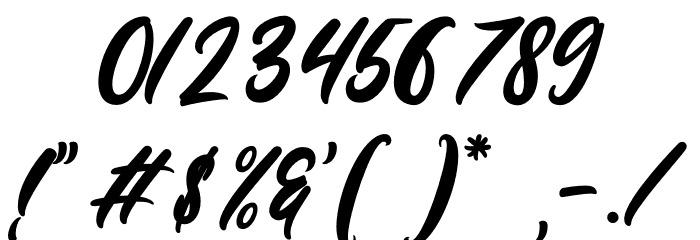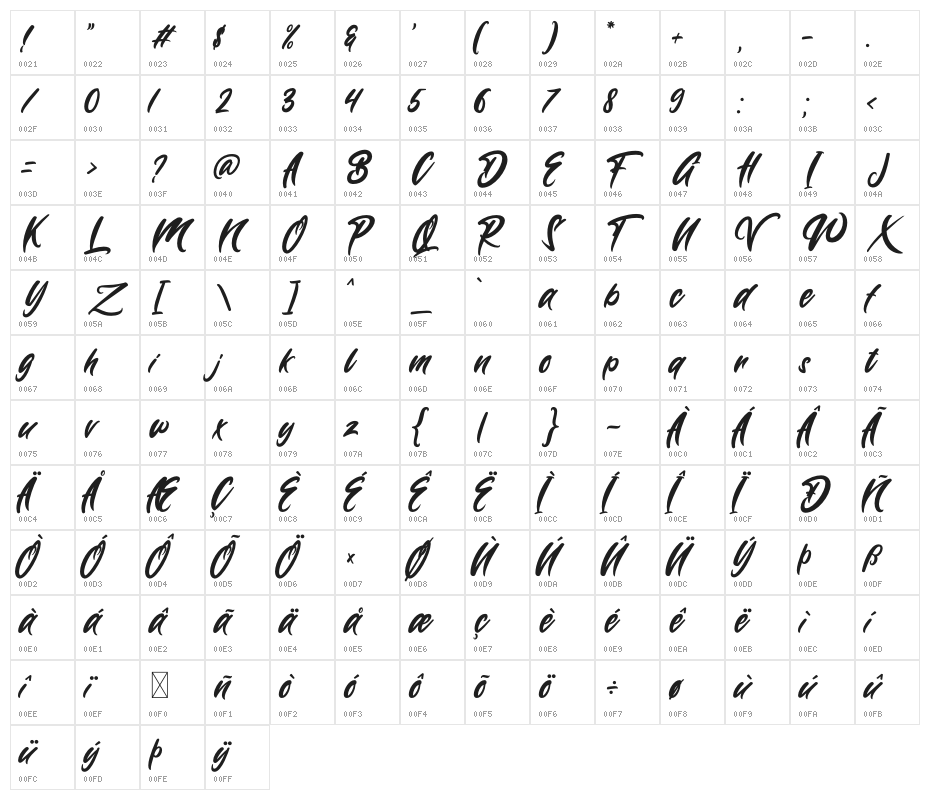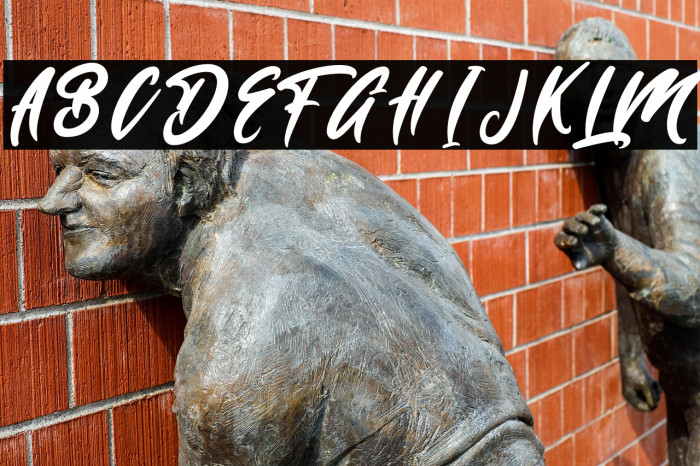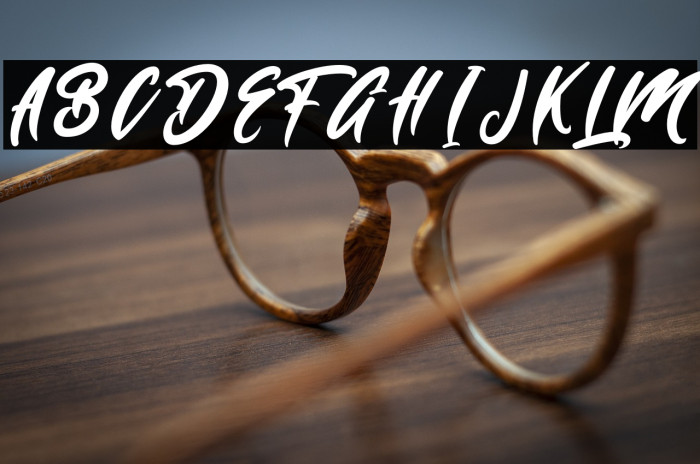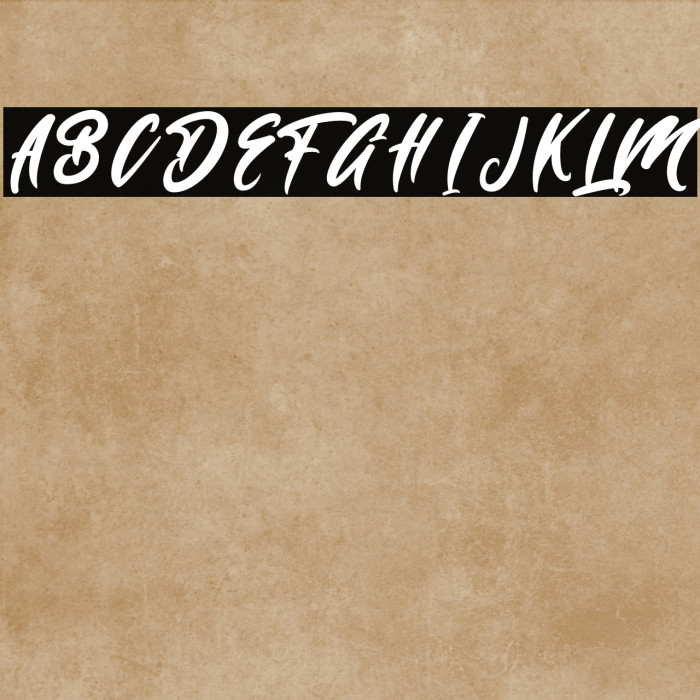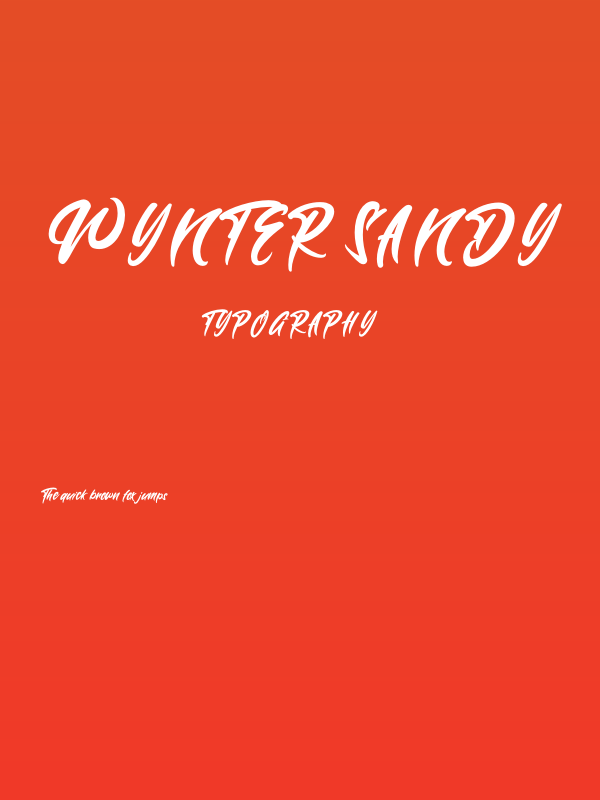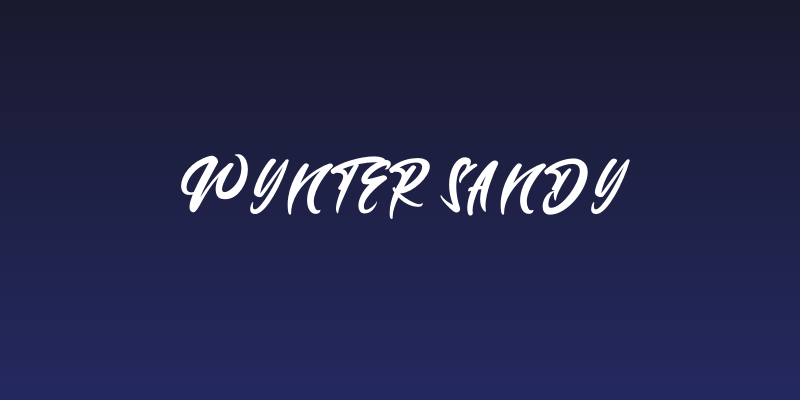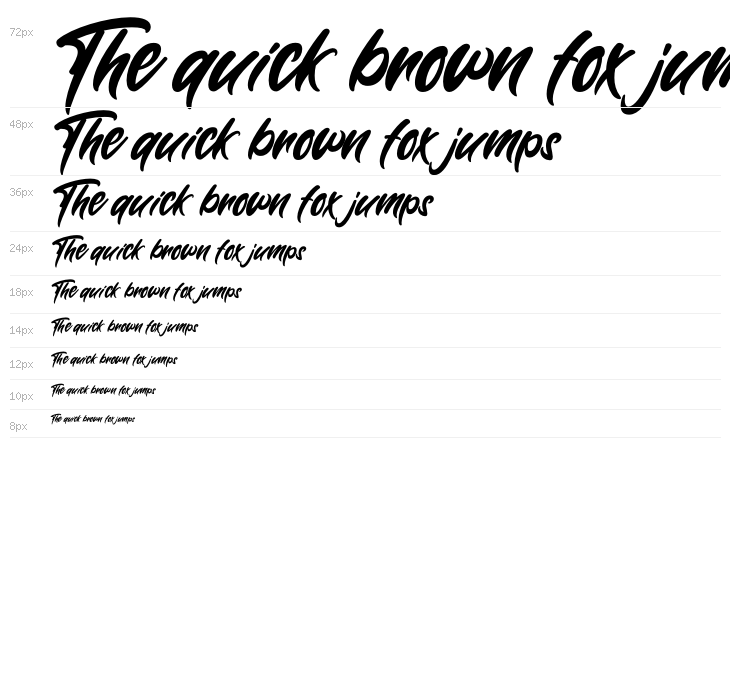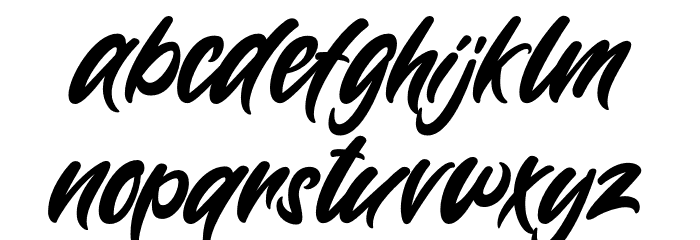
Wynter Sandy Font
Wynter Sandy Description
This font features a bold and expressive script style, characterized by its fluid and dynamic strokes. The letters are interconnected, giving a sense of continuity and flow, reminiscent of traditional calligraphy. The uppercase letters are slightly more ornate, with flourishes that add a touch of elegance, while the lowercase letters maintain a consistent rhythm. The numerals and special characters are designed to match the overall aesthetic, ensuring a cohesive look across all text. This font's boldness and style make it stand out, perfect for creating eye-catching designs.